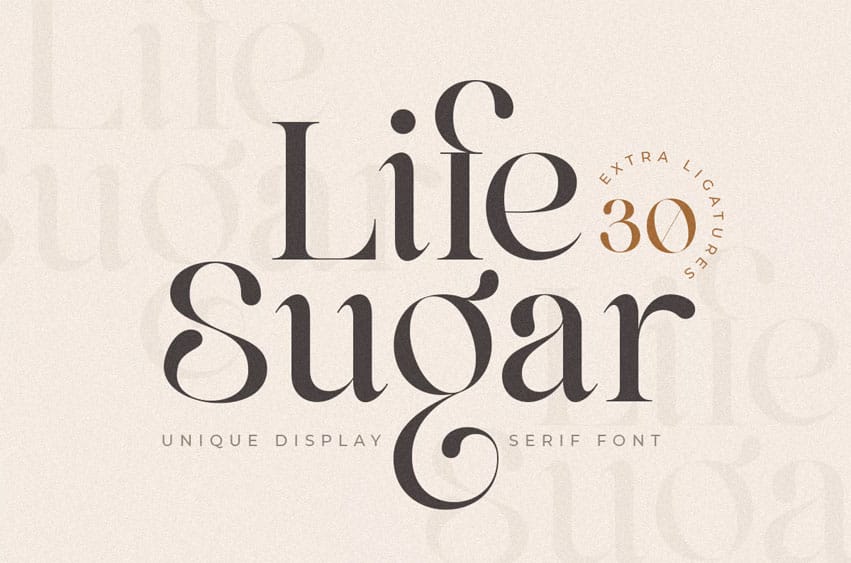
Life Sugar Font is a unique, luxury, modern serif font that is well-balanced and contemporary. This versatile font offers a fancy and distinctive style, allowing you to create a variety of unique shapes in just seconds by selecting alternate characters.
As a serif display font with moderate contrast, it is perfect for a range of applications, including branding projects, logos, wedding designs, social media posts, advertisements, product packaging, labels, photography, watermarks, invitations, stationery, and more. It ensures a high level of legibility, making it suitable for any project.>